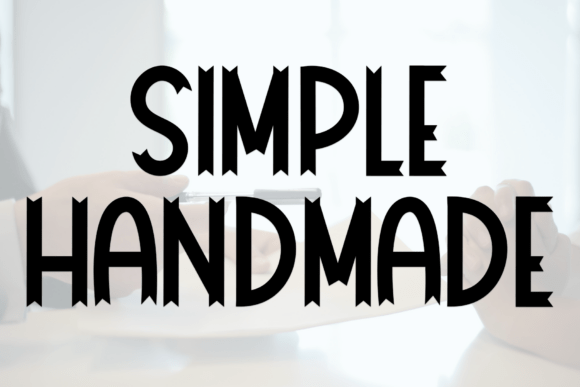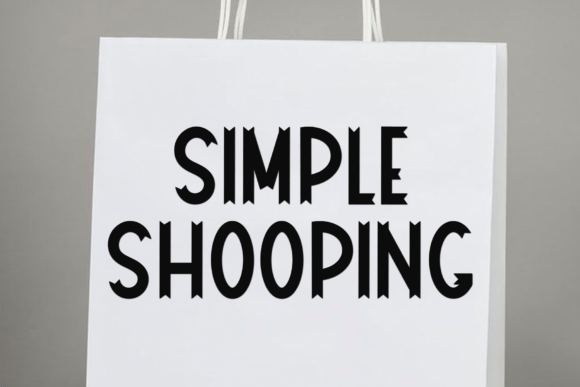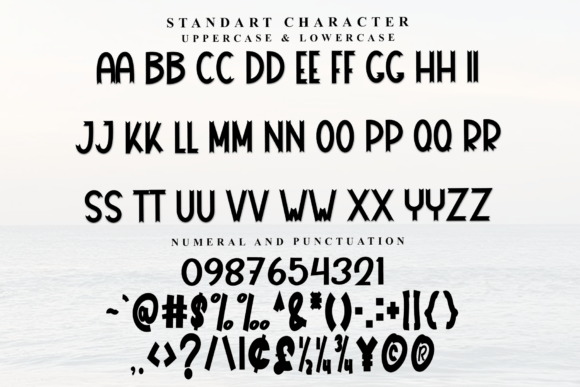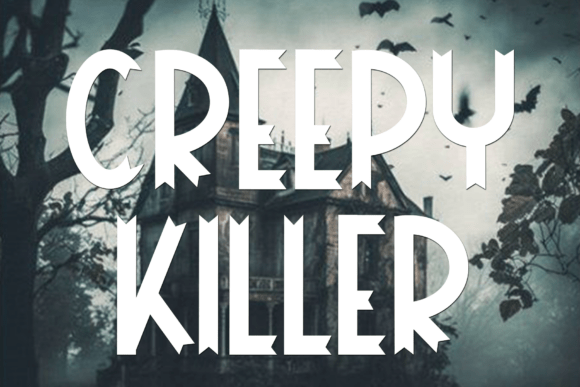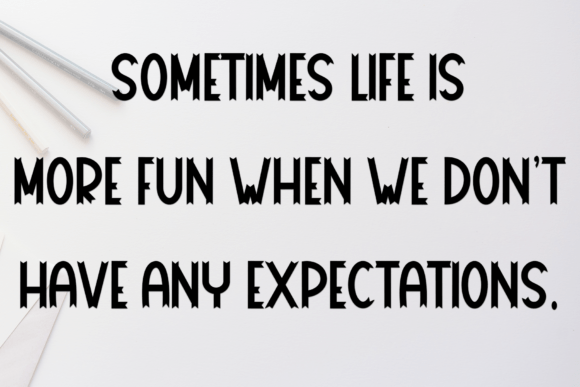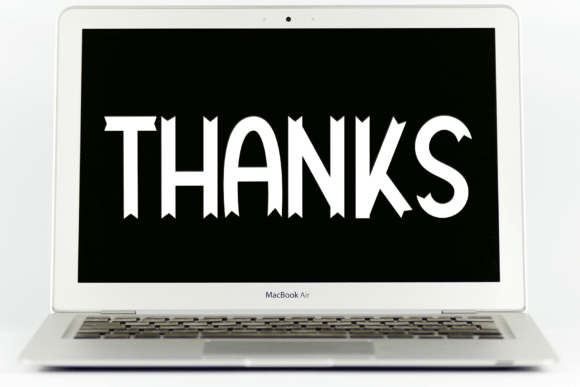
Introduction to Home Nothing Font
Remember the thrill of discovering a new font that sparks your creativity? It’s like stumbling upon a hidden treasure trove of design possibilities. For designers, finding the perfect font can be the key to unlocking a truly unique and captivating visual identity. And that’s exactly what the Home Nothing Font offers – a bold and striking display font that’s sure to leave a lasting impression.
With its sharp, pointed edges and dramatic flair, the Home Nothing Font is a design resource that’s perfect for making a statement. Whether you’re working on a free download project or a high-quality commercial design, this font is sure to add a touch of edginess and sophistication to your creative project.
Key Features of Home Nothing Font
- High-quality design resource ideal for creative projects requiring a unique aesthetic.
- Designed with a minimalist approach, making it perfect for modern and sleek design applications.
- Includes a variety of font styles and weights, providing ample options for customization and versatility.
Honest Review: Home Nothing Font
I recently had the chance to work with the Home Nothing Font, and I must say it’s a decent addition to any designer’s toolkit. As a free download, it’s a great resource for those looking to spice up their creative projects without breaking the bank.
The font itself has a unique, playful feel that’s perfect for titles and headings. ✨ The transparent background is also a nice touch, allowing for easy layering and customization. However, I did find that the font can be a bit too ornate for body text, making it difficult to read in smaller sizes.
Here are some of the key features that I appreciated:
- Unique, eye-catching design
- Perfect for titles and headings
- High-quality vector files for crisp, clear rendering
However, there are some limitations to keep in mind:
- May not be suitable for body text due to ornate design
- Not as versatile as some other fonts in terms of font sizes
Overall, I’d say the Home Nothing Font is a solid choice for designers looking for a unique, high-quality font for their creative projects. With a little bit of finesse, it can really add some personality to your designs. ⚠️ Just be mindful of its limitations, and you’ll be golden!
How to Use Home Nothing Font
The Home Nothing Font is a versatile and high-quality design resource perfect for creative projects. It offers a transparent background, making it easy to use in various design applications.
Tips for Getting the Most Out of Home Nothing Font
Experiment with different font sizes, colors, and styles to create a unique look for your design project. Use the font in combination with other design elements to create a visually appealing design.
The Home Nothing Font is ideal for use in creative projects such as logos, business cards, brochures, and social media graphics. Its transparent background and high-quality design make it a versatile and convenient design resource.
Use Noto Sans for: Body text, titles, and headings in modern design projects. It compares to Home Nothing Font in its simplicity and versatility, but Noto Sans is more comprehensive and supports multiple languages.
Lato is a free, open-source font that offers a clean and modern design suitable for a wide range of creative projects. It’s perfect for use in design resources requiring a high-quality, yet subtle font.
Use Lato for: Titles, headings, and body text in creative projects. Lato is similar to Home Nothing Font in its minimalist design, but it offers more font weights and styles to enhance your design resource.